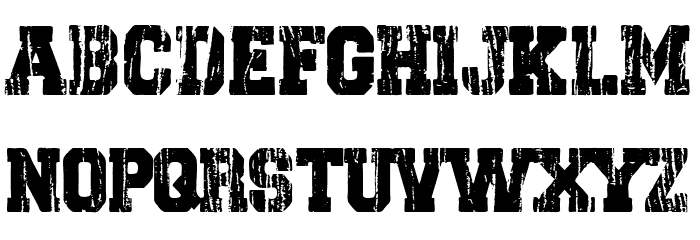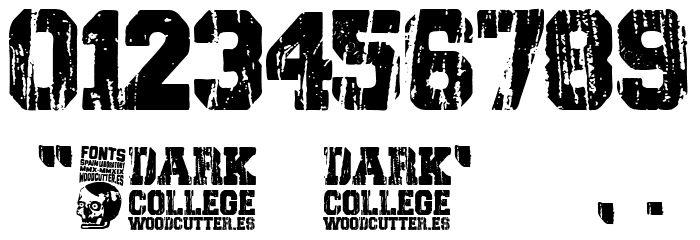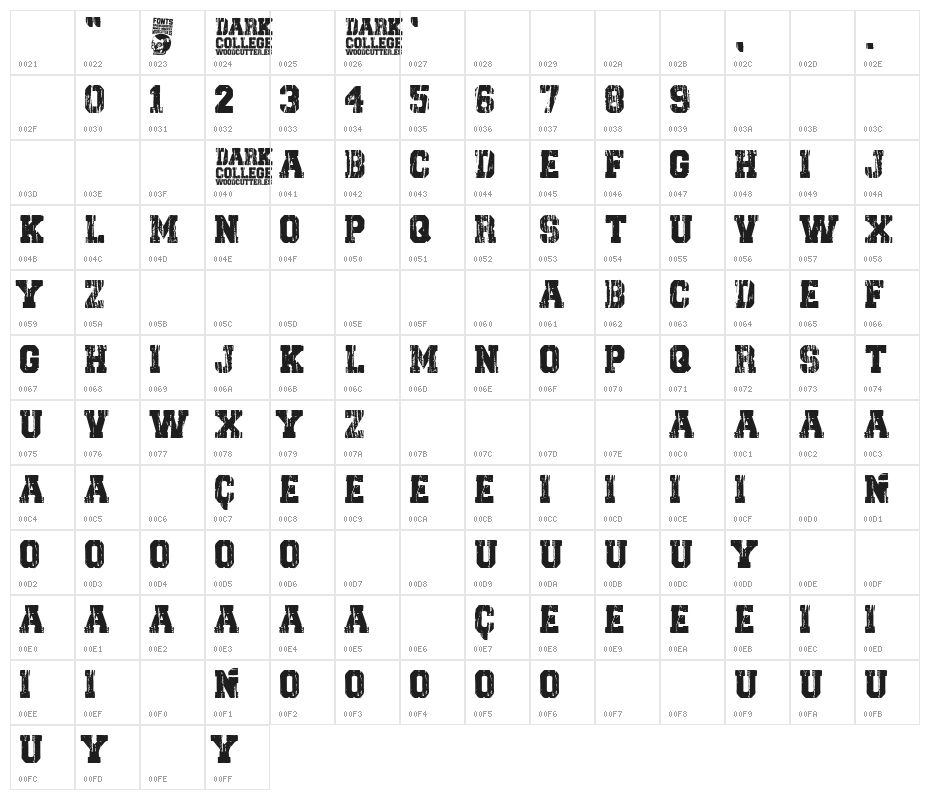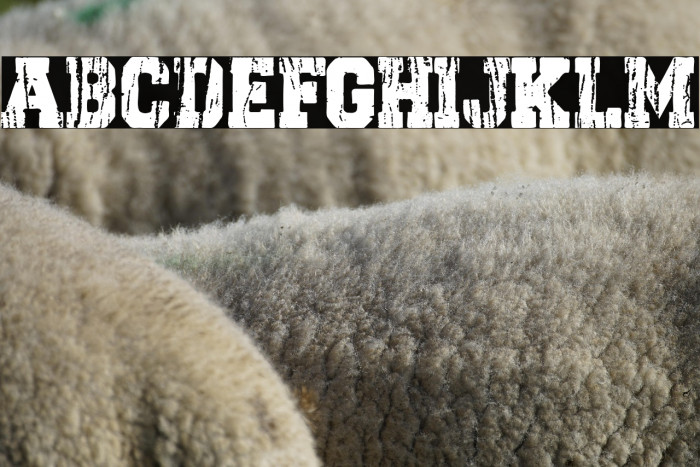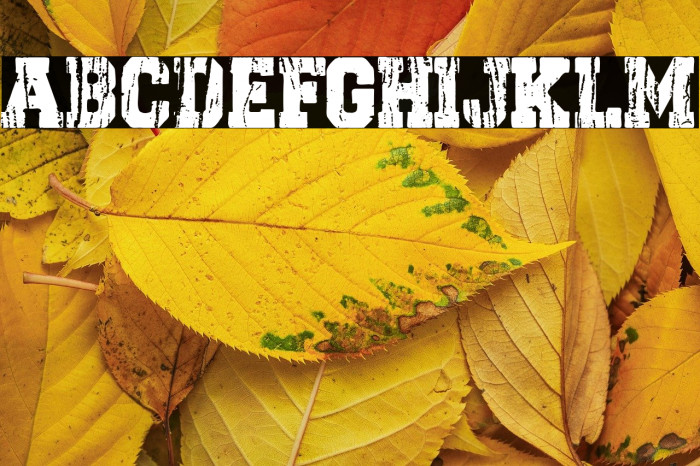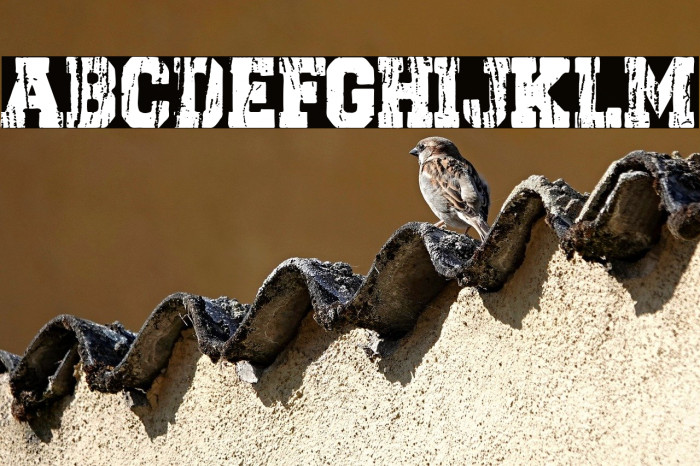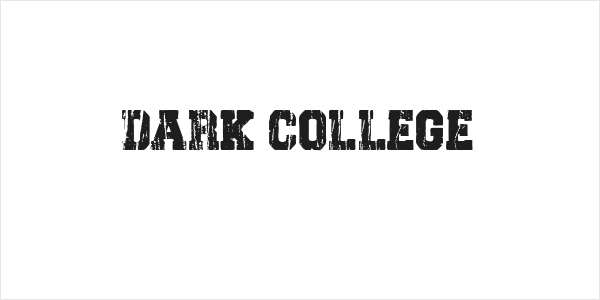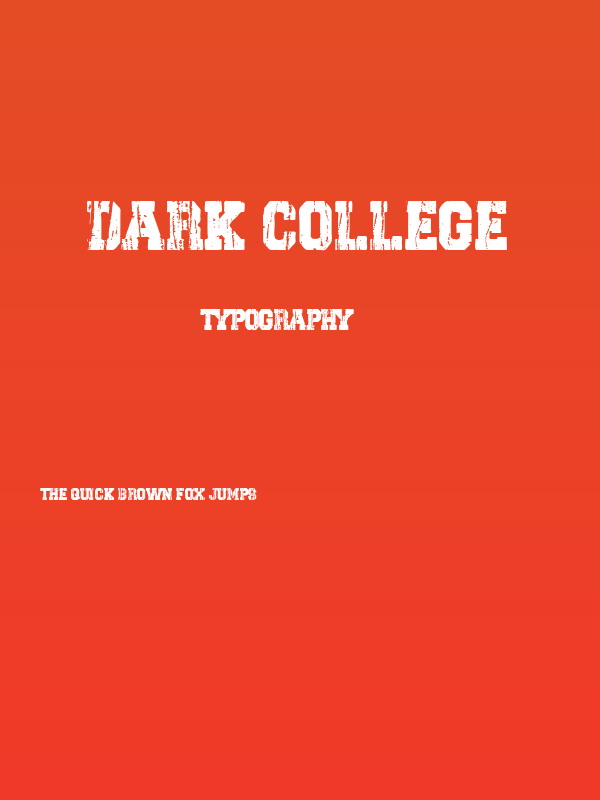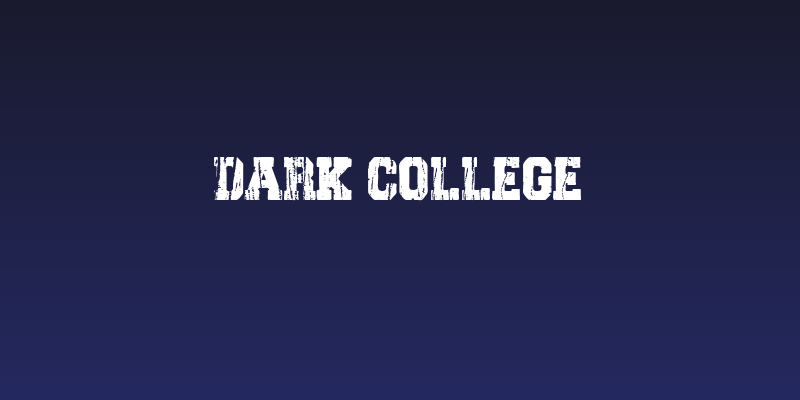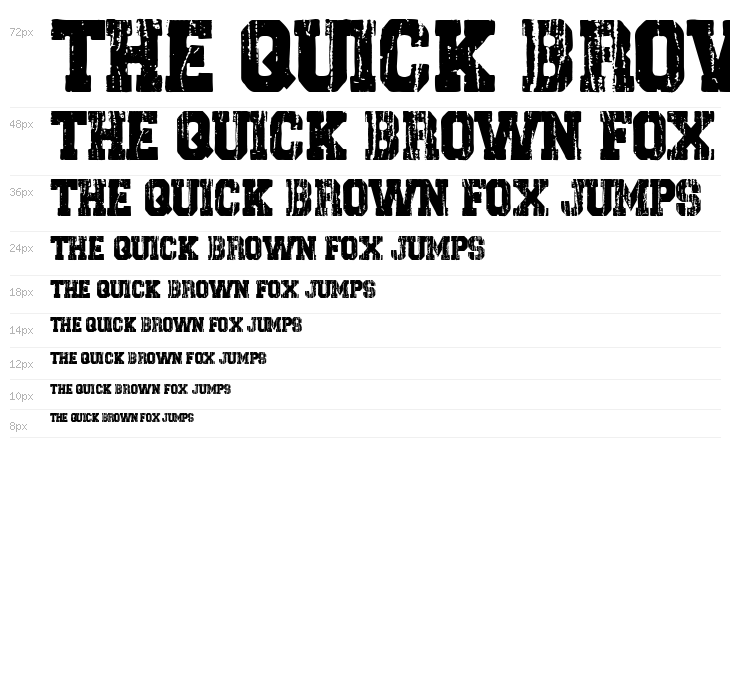
Dark College Font
This font features a bold, distressed style with a rugged, textured appearance. The characters are blocky and robust, reminiscent of collegiate or varsity lettering, but with a unique twist due to the worn, eroded effect applied to each letter. This gives the font a gritty, urban feel, making it stand out in any design. The uppercase letters are particularly striking, with their strong presence and impactful design. The numerals and special characters maintain the same distressed aesthetic, ensuring consistency across all text elements.
A bold, distressed font with a rugged, collegiate style.
- Font: Dark College
- Proposed Projects: Ideal for sports-themed designs, posters, logos, and apparel branding that require a bold, gritty look.
- Overall Style: Vintage